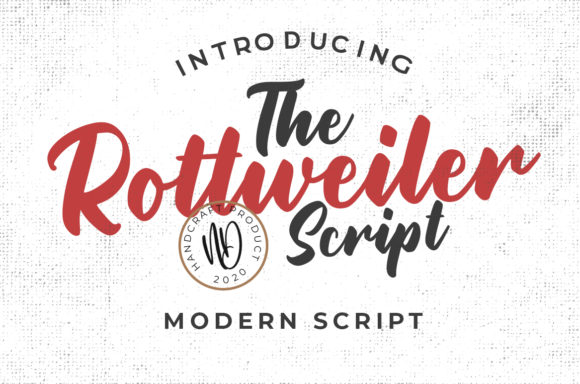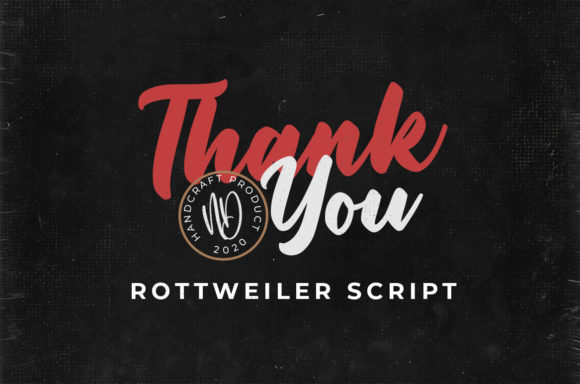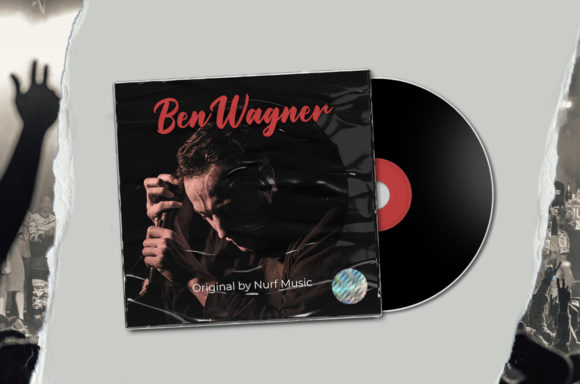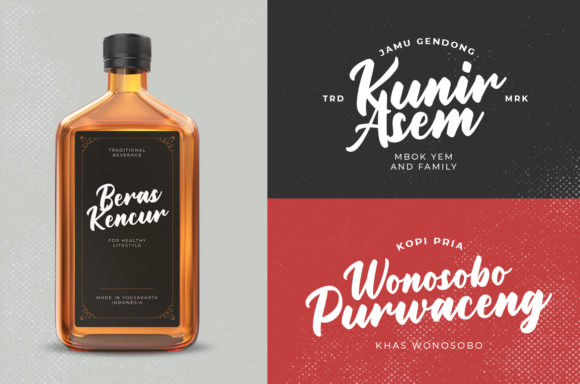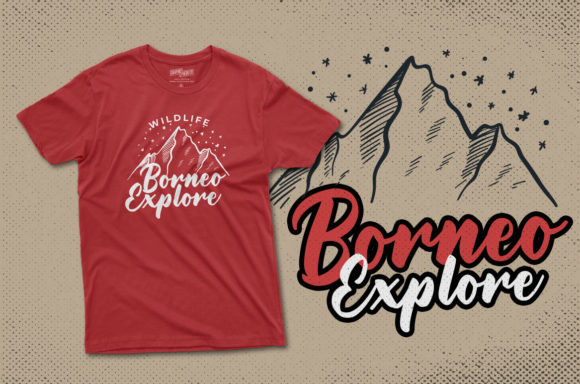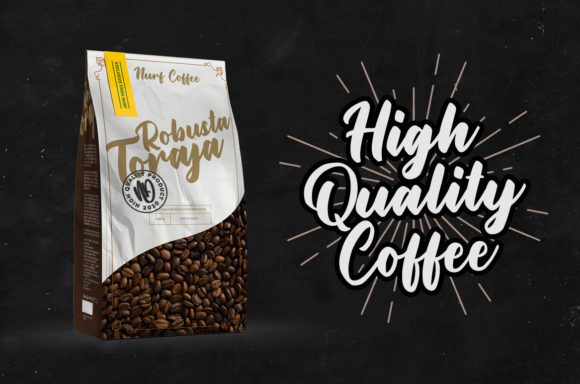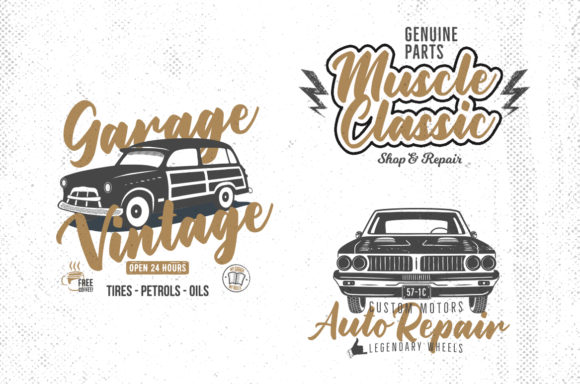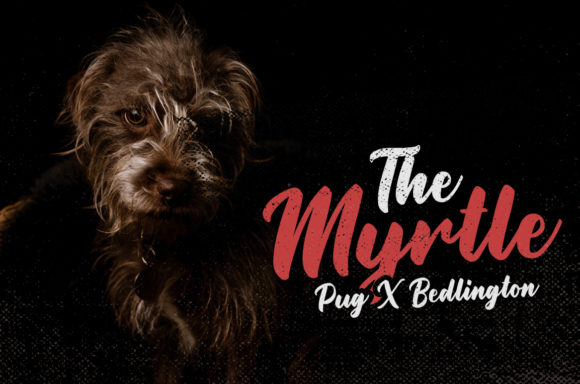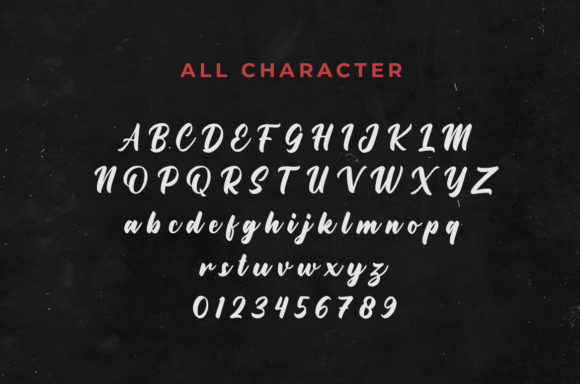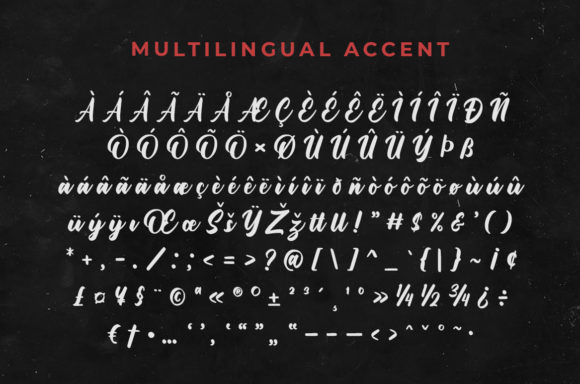
Rottweiler Font
About Rottweiler Font
Rottweiler is a handwritten font with a classic and retro style. This font is the perfect fit for all of your logos, branding, social media, and crafty DIY projects.